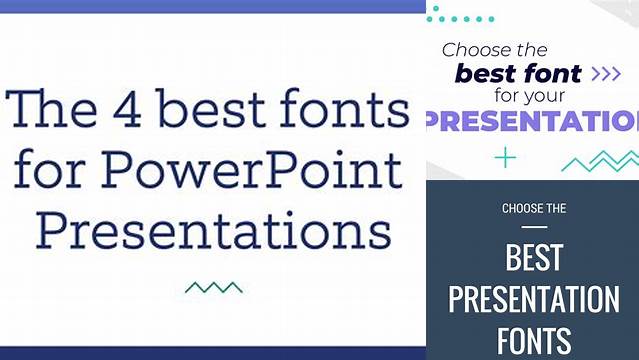
Best PowerPoint Fonts: A Guide To Engaging Presentations
Hey guys! Ever feel like your PowerPoint presentations are falling flat? You've got the killer content, the awesome data, but something's just... missing? Chances are, your font choices might be the culprit! Fonts are super important in conveying your message effectively. The right font can make your presentation look professional, engaging, and easy to read, while the wrong font can make it look amateurish and even difficult to understand. So, let's dive into the world of PowerPoint fonts and learn how to choose the perfect ones to make your presentations shine!
Why Font Choice Matters in PowerPoint
Let's get real, the fonts you use in your PowerPoint presentations aren't just a stylistic choice; they're a fundamental part of how your audience perceives your message. Think of it this way: a font is like the tone of your voice – it can be serious, playful, formal, or casual. Using the appropriate font helps you establish the right mood and enhance the overall impact of your presentation. A clean, readable font ensures your audience can easily follow your content, while a poorly chosen font can lead to eye strain and disengagement. Imagine trying to read a complex chart in a handwritten-style font – frustrating, right? In the realm of presentations, clarity is king. You want your audience to focus on your message, not struggle to decipher your words. Furthermore, font choice plays a crucial role in establishing your credibility. Using professional, well-designed fonts can instantly boost your presentation's perceived value. A sleek, modern font can signal innovation and forward-thinking, while a classic, serif font might convey trustworthiness and authority. On the flip side, using outdated or overly decorative fonts can make your presentation look unprofessional and detract from your message. The key is to choose fonts that align with your content, your brand, and your audience. Consider the overall tone you want to set – are you presenting a serious business proposal, a creative project, or an informative workshop? Your font choices should reflect that tone and contribute to the overall coherence of your presentation. By carefully selecting your fonts, you can ensure your message is not only heard but also felt and understood.
Understanding Font Types: Serif vs. Sans Serif
Okay, so let's break down the two main font categories you'll encounter in PowerPoint: serif and sans serif. Knowing the difference is crucial for making the right choices for your presentation. Serif fonts are those fonts that have little strokes or "feet" at the end of each letter. Think of fonts like Times New Roman, Garamond, or Georgia. These fonts generally have a more traditional and formal feel. They're often used in printed materials, like books and newspapers, because the serifs help guide the eye across the page, making large blocks of text easier to read. Now, sans serif fonts, on the other hand, are fonts that don't have those little strokes. Arial, Helvetica, Calibri, and Open Sans are all examples of sans serif fonts. These fonts tend to have a cleaner, more modern, and minimalist look. They're often preferred for on-screen reading, like in presentations or websites, because they're highly legible even at smaller sizes. So, how do you choose between serif and sans serif? Well, there's no hard and fast rule, but here are some general guidelines: For body text in your PowerPoint slides, sans serif fonts are often the better choice because they offer excellent readability on screens. Serif fonts can sometimes appear cluttered on a screen, especially at smaller sizes. However, for headings and titles, you can use either serif or sans serif fonts, depending on the overall style you want to achieve. A serif font in a heading can add a touch of elegance and formality, while a sans serif font can create a more modern and impactful look. Ultimately, the best approach is to experiment and see what looks best for your specific presentation. Consider your audience, your topic, and the overall tone you want to convey. And remember, consistency is key! Stick to a maximum of two font families in your presentation – one for headings and one for body text – to maintain a clean and professional look.
Top Fonts for PowerPoint Presentations
Alright, let's get to the good stuff! What are some top-notch fonts that will make your PowerPoint presentations pop? I'm going to give you a rundown of some reliable choices that work well in a variety of situations. First up, we have Arial. It's a classic sans serif font that's super clean and legible. It's a safe bet for body text and headings alike, especially if you're aiming for a professional and straightforward look. Then there's Calibri, another popular sans serif font that's known for its rounded and friendly appearance. It's a great option for presentations that need a touch of warmth and approachability. Moving on, we have Helvetica, a widely used sans serif font that's renowned for its neutrality and versatility. It's a fantastic choice if you want a font that won't distract from your content. For a more modern and stylish sans serif option, consider Open Sans. It's a highly legible font that works well in both headings and body text, and it's a popular choice for web design as well. Now, let's talk about some serif fonts. Times New Roman is a classic serif font that's often used in academic and formal settings. It can add a touch of elegance and authority to your presentation, but be careful not to overuse it, as it can sometimes look a bit dated. Garamond is another excellent serif font that's known for its readability and classic appeal. It's a great choice for presentations that require a touch of sophistication. And finally, we have Georgia, a serif font that's specifically designed for on-screen reading. It's a highly legible option for body text, and it can add a touch of warmth and personality to your presentation. Remember, the best font for your presentation will depend on your specific needs and preferences. Experiment with different fonts and see what works best for you. And don't be afraid to mix and match serif and sans serif fonts to create visual interest and hierarchy in your slides.
Font Pairing Tips for PowerPoint
Font pairing, guys, is like the secret sauce to a visually appealing PowerPoint presentation. It's about choosing two fonts that complement each other, creating a harmonious and professional look. The goal is to create a visual hierarchy that guides your audience through your content. Think of it like this: your heading font should grab attention and signal the start of a new section, while your body text font should be easy to read and allow your audience to focus on the message. So, how do you become a font-pairing pro? Here are some tips to get you started. First, the golden rule: pair a serif font with a sans serif font. This is a classic combination that works wonders. The contrast between the fonts creates visual interest and makes your presentation more engaging. For example, you could pair a serif font like Garamond for your headings with a sans serif font like Open Sans for your body text. Next, consider the personality of your fonts. Some fonts have a more formal and serious tone, while others are more casual and playful. Make sure your font pairings align with the overall tone and message of your presentation. For a business presentation, you might choose a more professional pairing like Helvetica and Times New Roman. For a creative presentation, you might opt for a more playful combination like Montserrat and Merriweather. Another tip is to pay attention to font weights and sizes. Use different weights and sizes to create visual hierarchy and emphasize important information. For example, you could use a bold weight for your headings and a regular weight for your body text. You can also use different sizes to differentiate between headings, subheadings, and body text. Finally, don't be afraid to experiment! Try out different font pairings and see what looks best for your presentation. There are tons of resources online that offer font pairing suggestions, so don't hesitate to explore and get inspired. And remember, consistency is key. Once you've chosen your font pairings, stick to them throughout your presentation to maintain a professional and cohesive look.
Common Font Mistakes to Avoid in PowerPoint
Okay, let's talk about some font faux pas – the common mistakes that can sabotage even the best PowerPoint presentations. Knowing what not to do is just as important as knowing what to do when it comes to font choices. One of the biggest mistakes is using too many fonts. I know, it can be tempting to experiment with a bunch of different fonts, but trust me, sticking to a maximum of two font families (one for headings and one for body text) is the way to go. Using too many fonts creates a cluttered and unprofessional look, and it can distract your audience from your message. Another common mistake is choosing fonts that are difficult to read. Fancy or decorative fonts might look cool, but if your audience can't easily decipher your words, your message is lost. Stick to fonts that are clear, legible, and designed for on-screen reading. Avoid handwritten-style fonts, overly stylized fonts, and fonts with very thin lines, especially for body text. Then there's the issue of font size. Using fonts that are too small can strain your audience's eyes and make it difficult to follow your presentation. As a general rule, use a minimum font size of 24 points for headings and 18 points for body text. Of course, you may need to adjust these sizes depending on the font you're using and the size of the room. Another font mistake to avoid is overusing bold and italics. While these formatting options can be useful for emphasizing important words or phrases, using them excessively can make your text look cluttered and overwhelming. Use bold and italics sparingly and strategically. Finally, be mindful of font consistency. Once you've chosen your fonts and formatting styles, stick to them throughout your presentation. Inconsistent font choices can make your presentation look sloppy and unprofessional. By avoiding these common font mistakes, you can ensure that your PowerPoint presentations are visually appealing, easy to read, and effective at communicating your message.
Conclusion: Fontastic Presentations Await!
So there you have it, guys! A comprehensive guide to choosing the best fonts for your PowerPoint presentations. We've covered why font choice matters, the difference between serif and sans serif fonts, top font recommendations, font pairing tips, common font mistakes to avoid, and where to find and install new fonts. The key takeaway here is that fonts are a powerful tool for enhancing your message and engaging your audience. By carefully selecting your fonts, you can create visually appealing presentations that are both easy to read and effective at communicating your ideas. Remember, the right font can make your presentation look polished, professional, and memorable. So, don't underestimate the impact of font choice! Take the time to experiment with different fonts, find pairings that work well together, and avoid those common font pitfalls. With a little bit of effort, you can transform your presentations from drab to fab and leave a lasting impression on your audience. Now go forth and create some fontastic presentations!